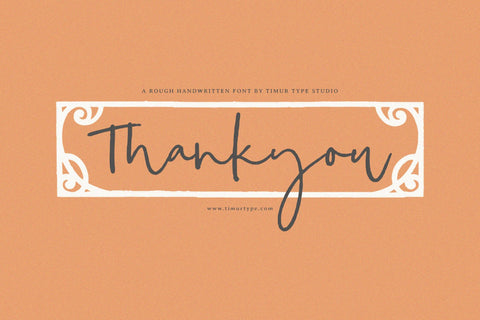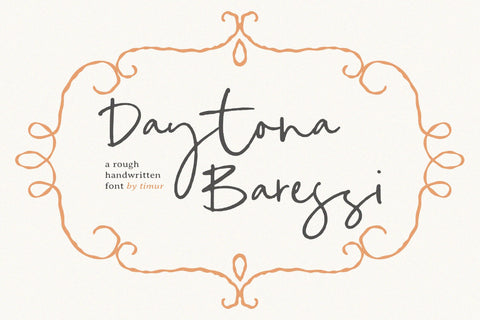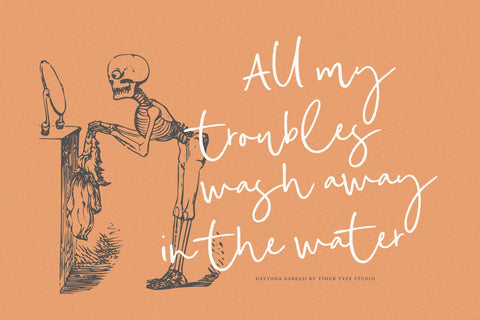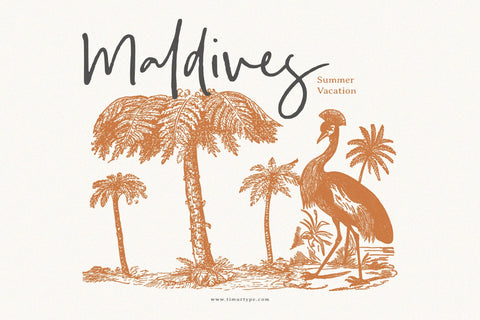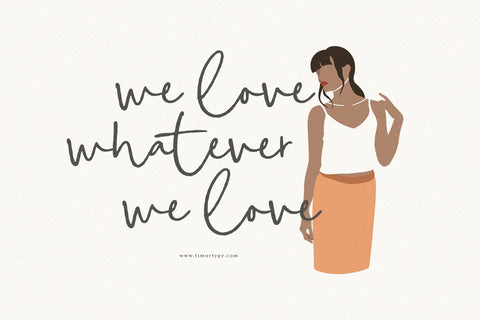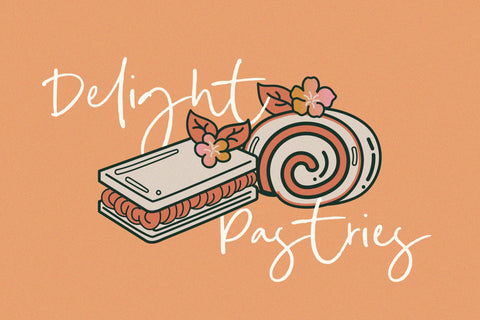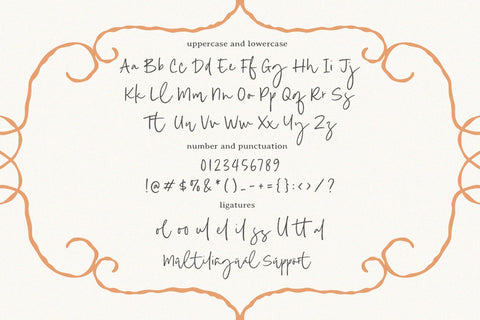
Daytona Baressi - Rough Handwritten Font
Daytona Baressi is a Rough Handwritten Font
This font is a unique rough handwritten font that captures the essence of casual elegance. Its bold strokes and organic imperfections evoke a sense of authenticity and warmth, making it perfect for projects that require a touch. Whether used in branding, invitations, or creative displays, Daytona Baressi adds a stylish, handcrafted feel that resonates with a relaxed, artistic vibe.
Daytona Baressi Font also supports multilingualism